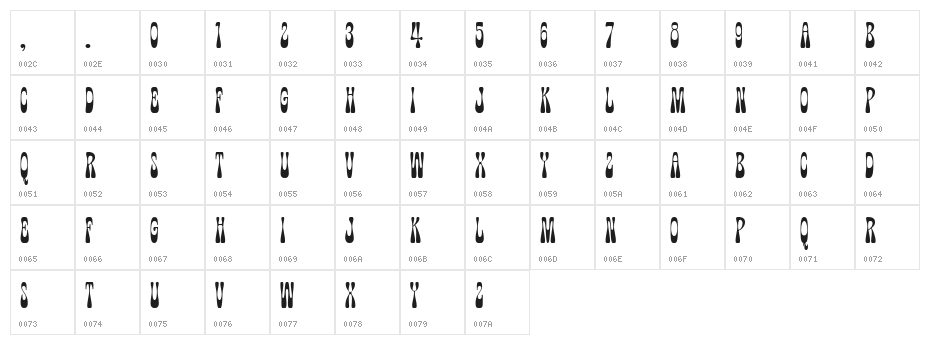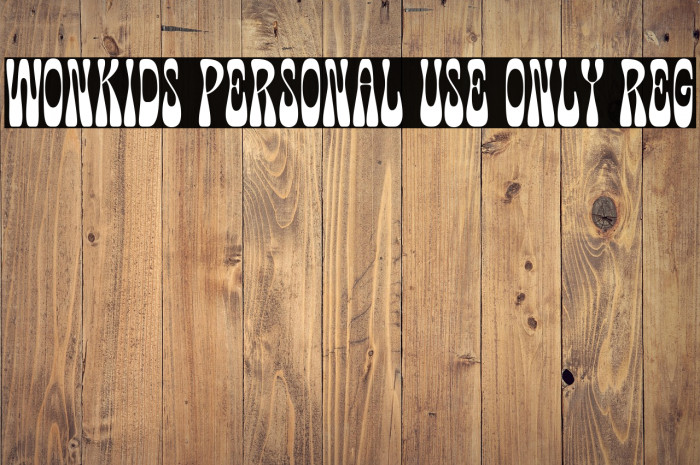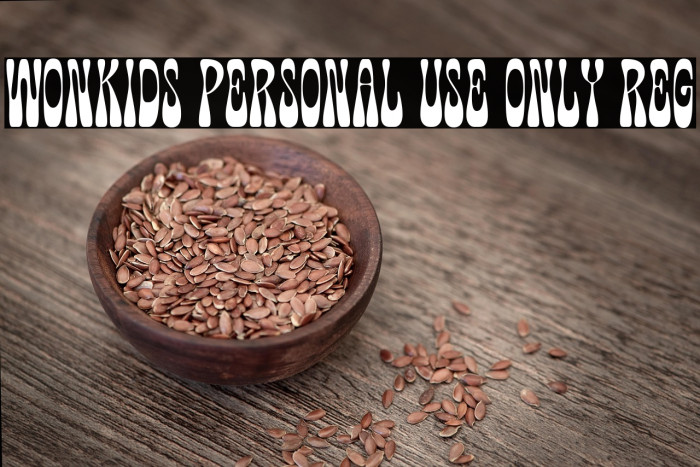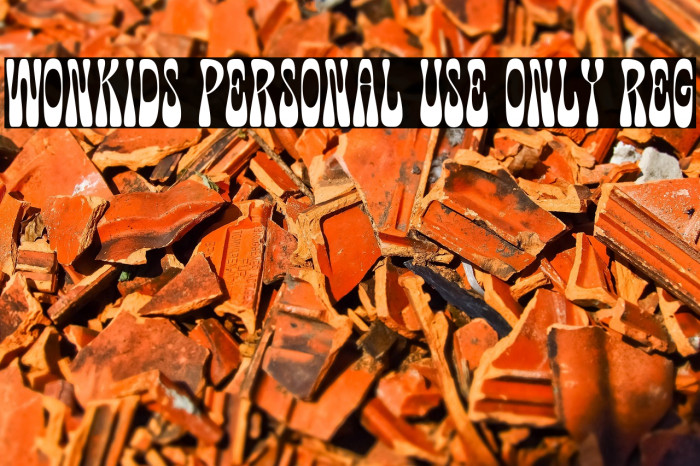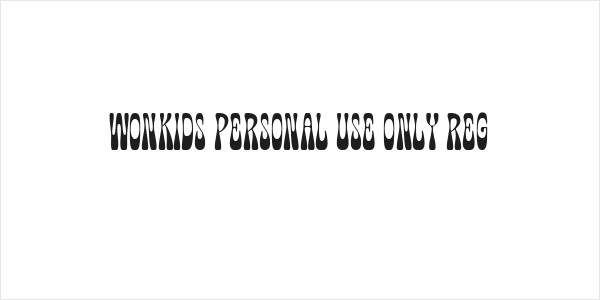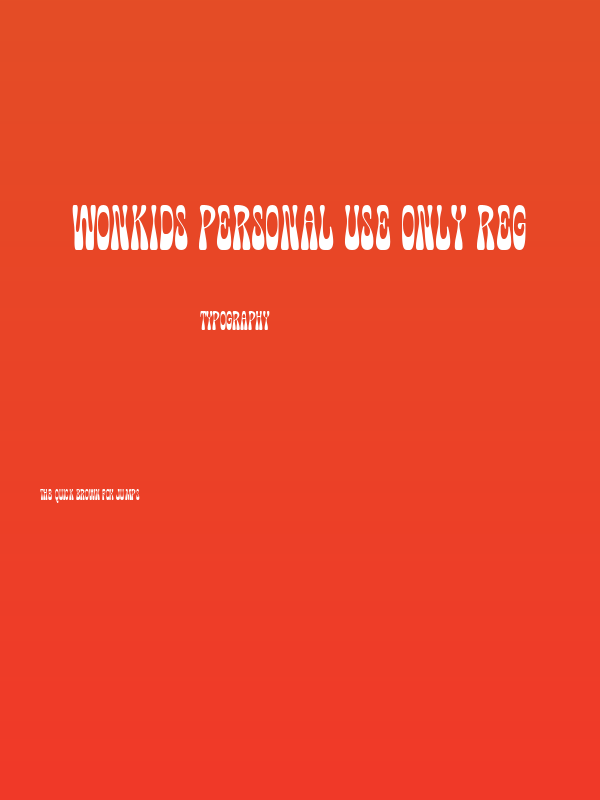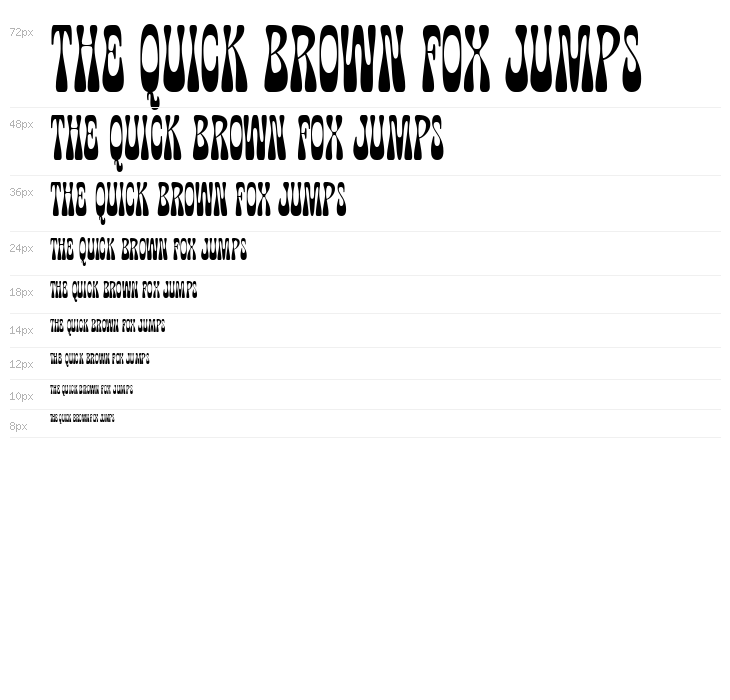
Wonkids PERSONAL USE ONLY Reg Font
Wonkids PERSONAL USE ONLY Reg Description
This font features a playful and whimsical design with exaggerated curves and bold strokes. The characters have a unique, bulbous appearance, giving them a fun and lively personality. The uppercase and lowercase letters maintain a consistent style, with rounded edges and a slightly condensed form. The numbers and special characters follow the same playful aesthetic, making the font suitable for creative and informal projects. Its distinct style makes it stand out, perfect for capturing attention in various design contexts.